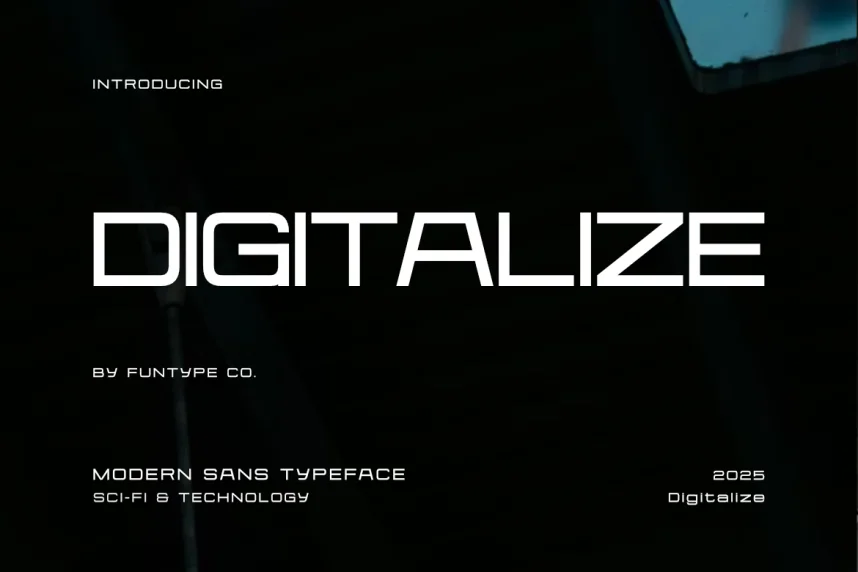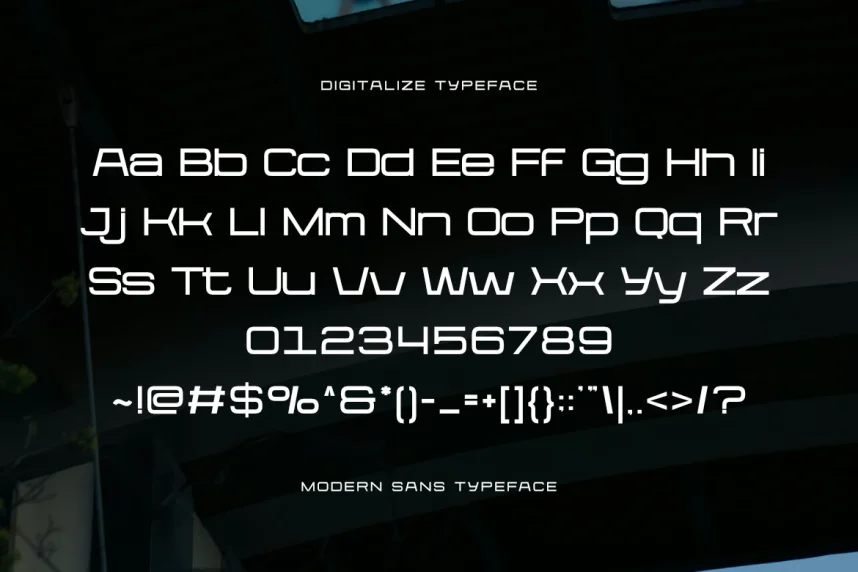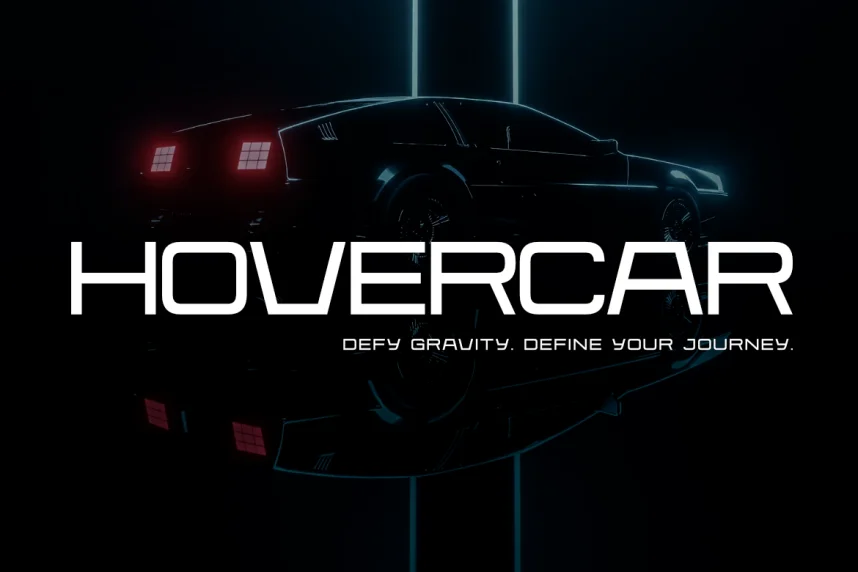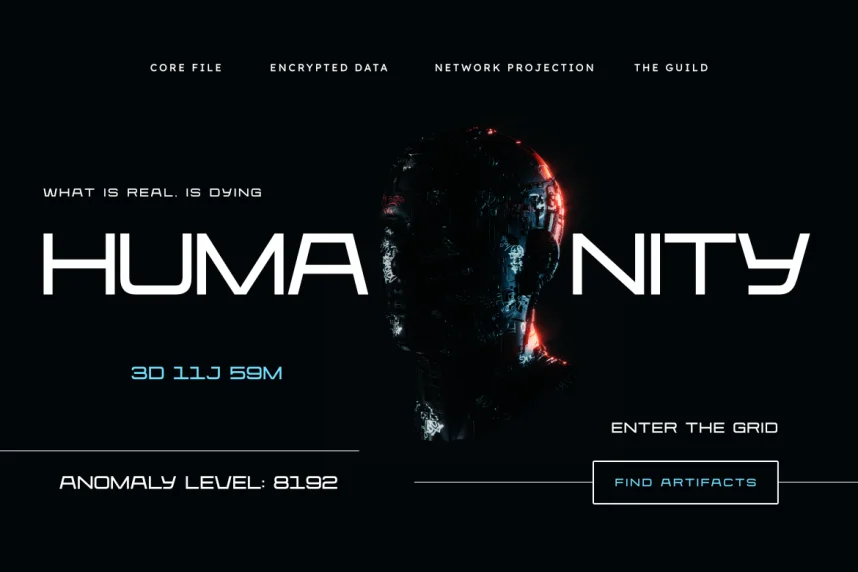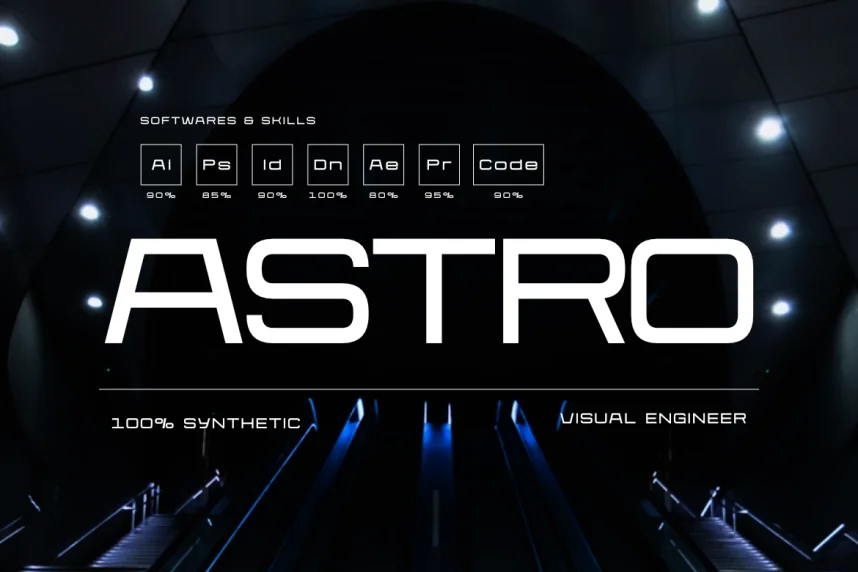
Digitalize Font addresses a frequent design issue in tech and interface projects: creating text that feels digital and structured while remaining readable. Designers working on UI elements, dashboards, or tech branding often need letterforms that clearly reflect a digital theme.
Digitalize Font is a display font inspired by segmented and digital-style letter construction. The letterforms feature straight lines, sharp angles, and consistent stroke weight, which helps maintain clarity in short text and headings. Curves are minimal, reinforcing a technical and system-based appearance.